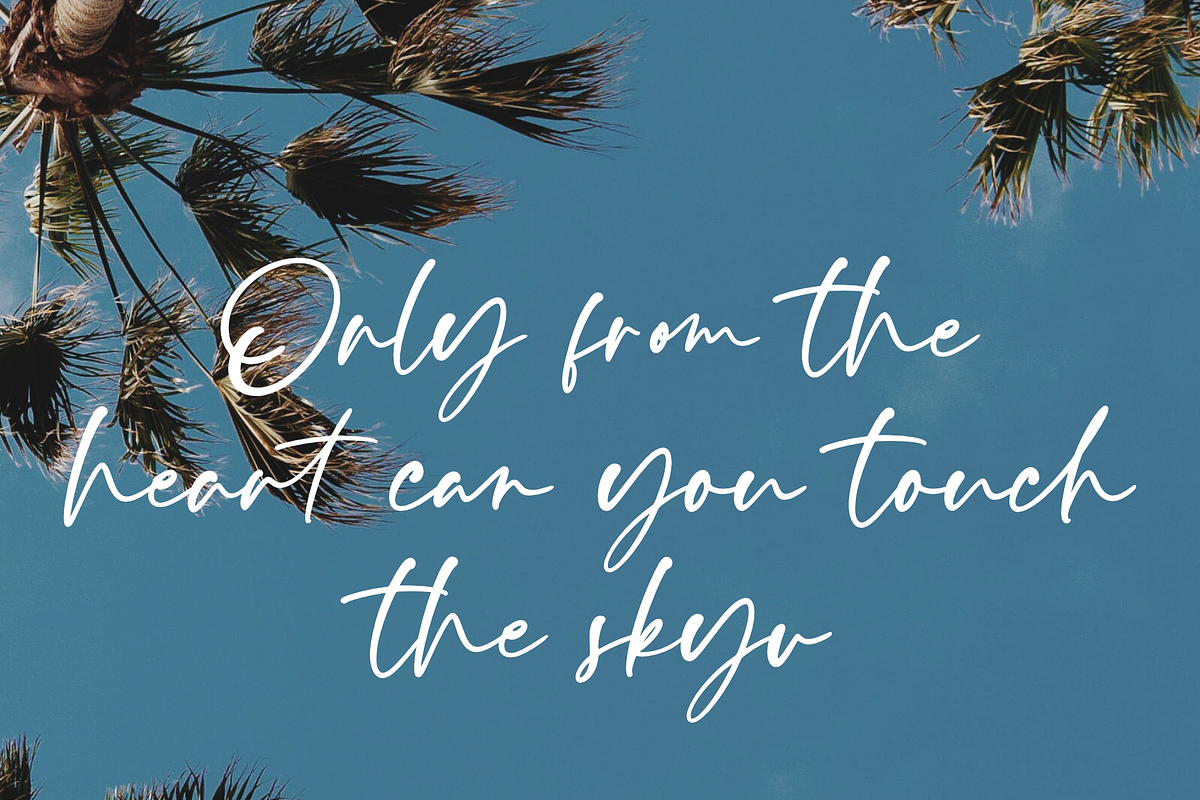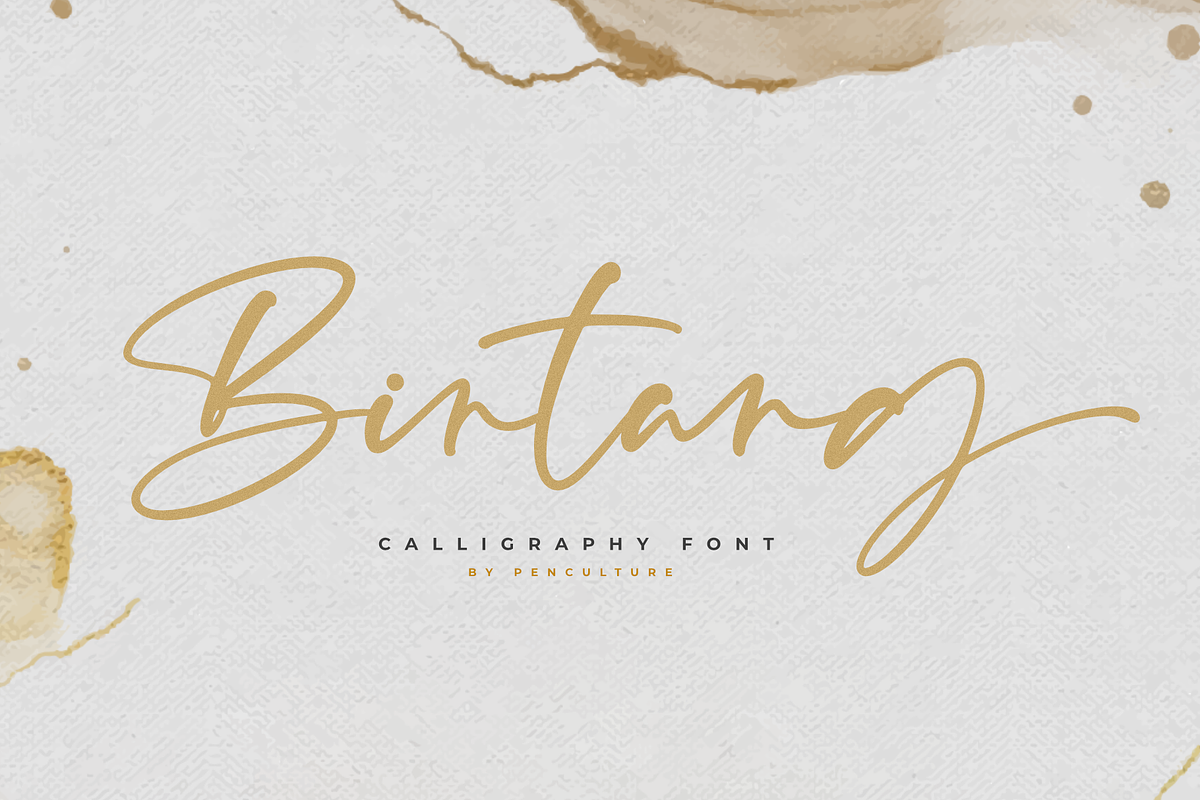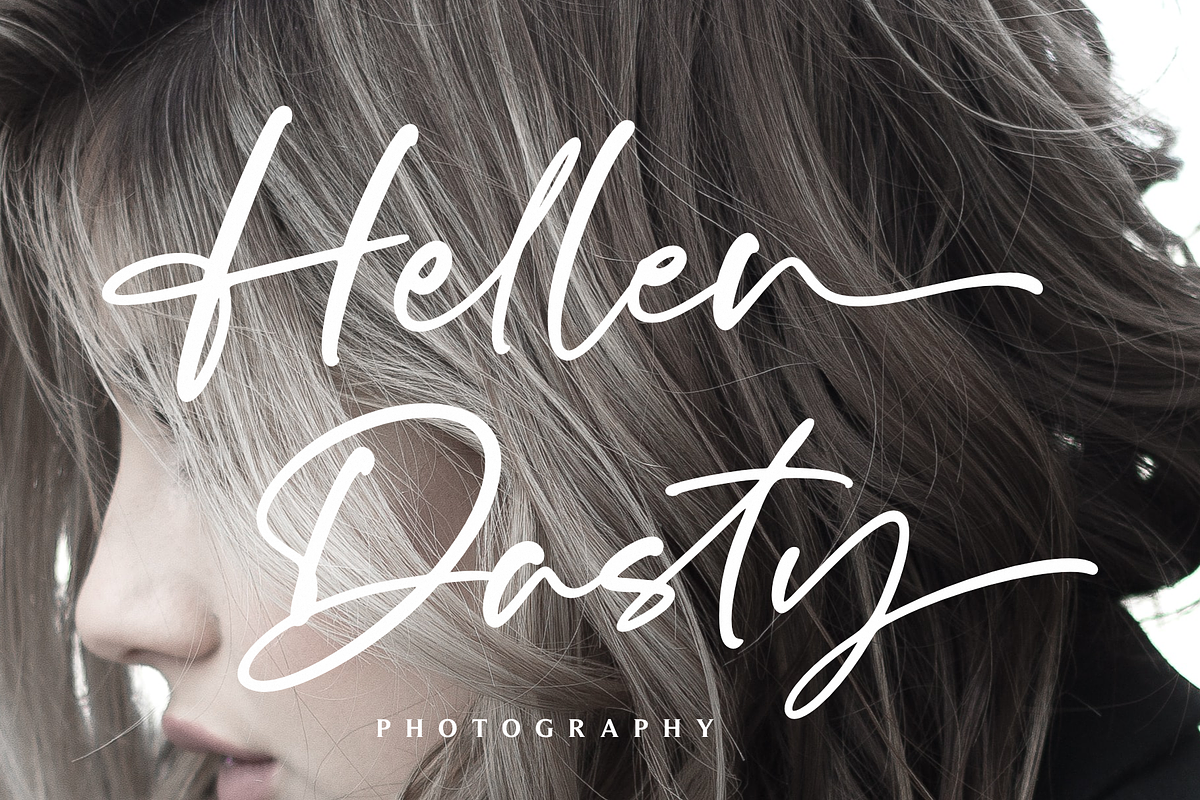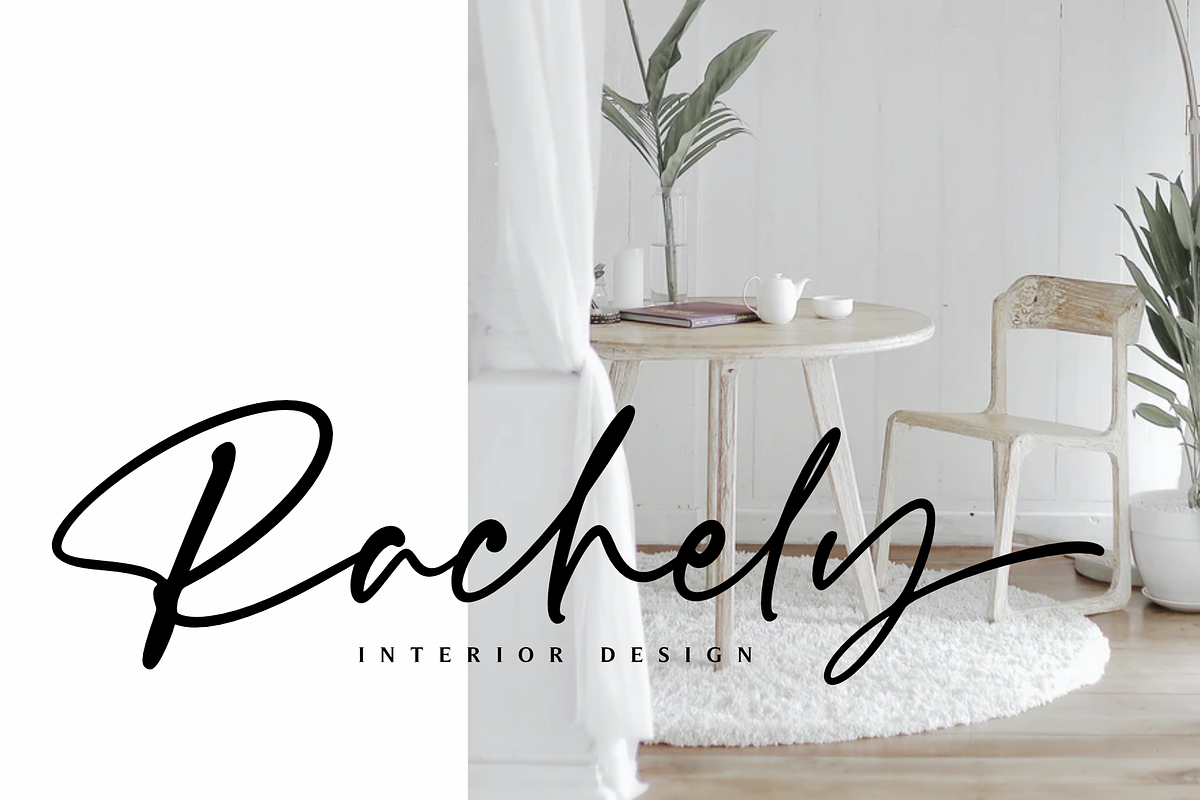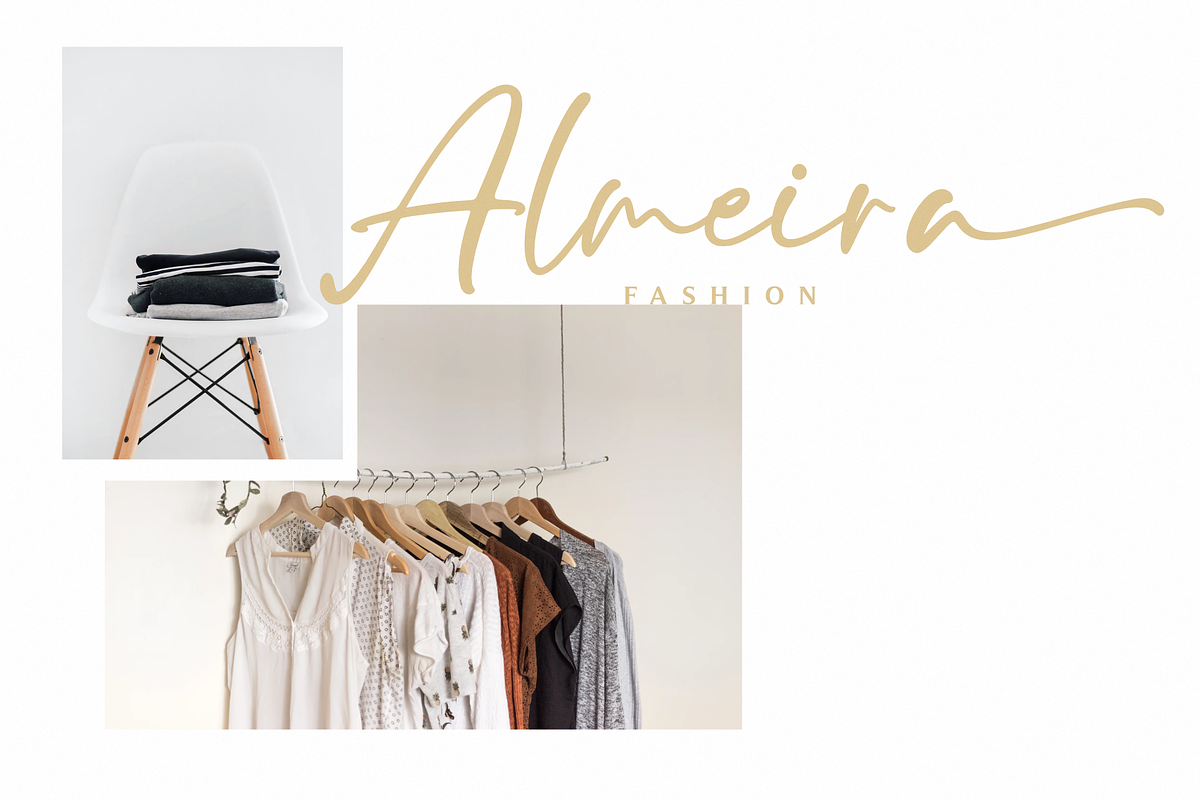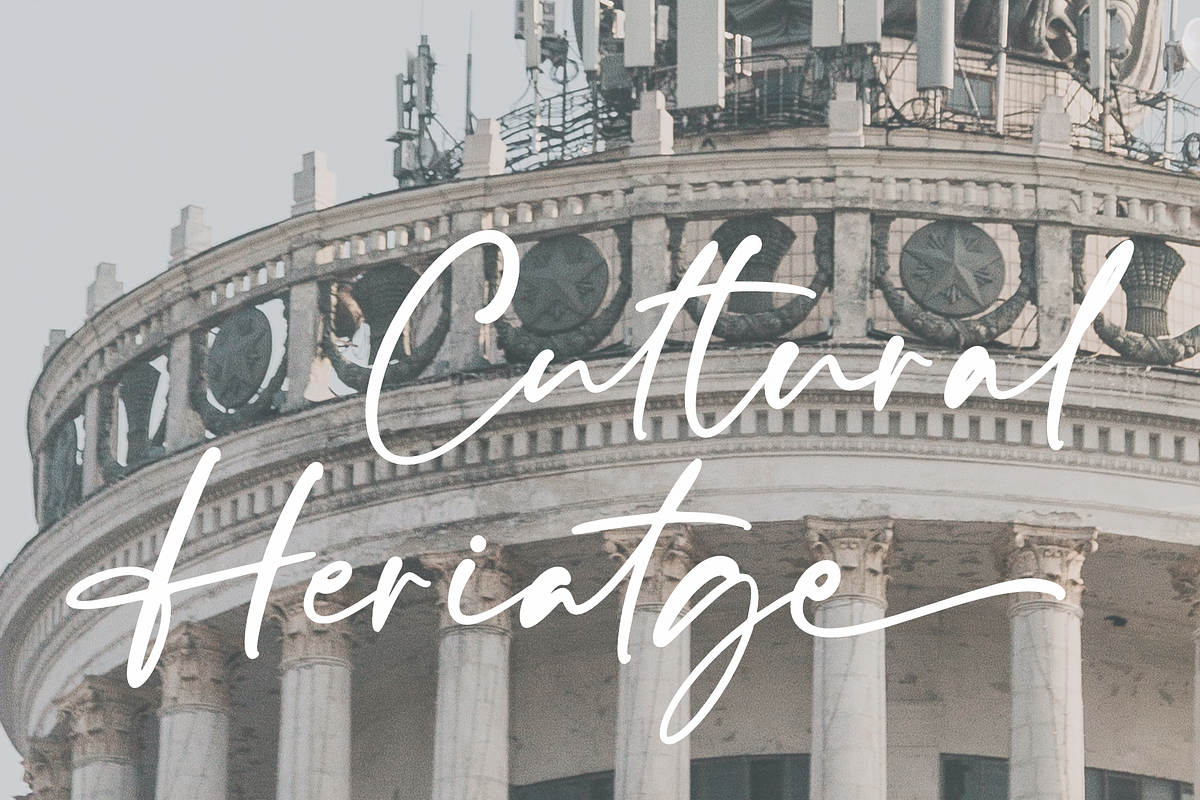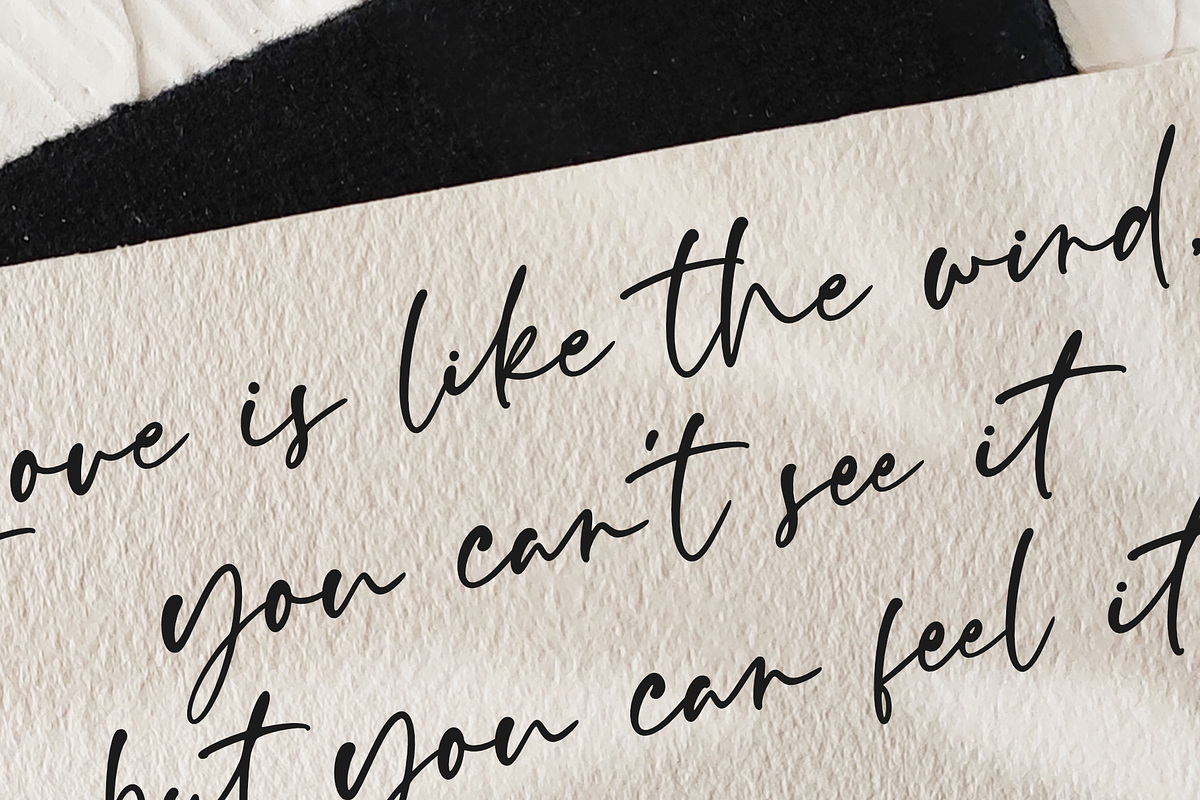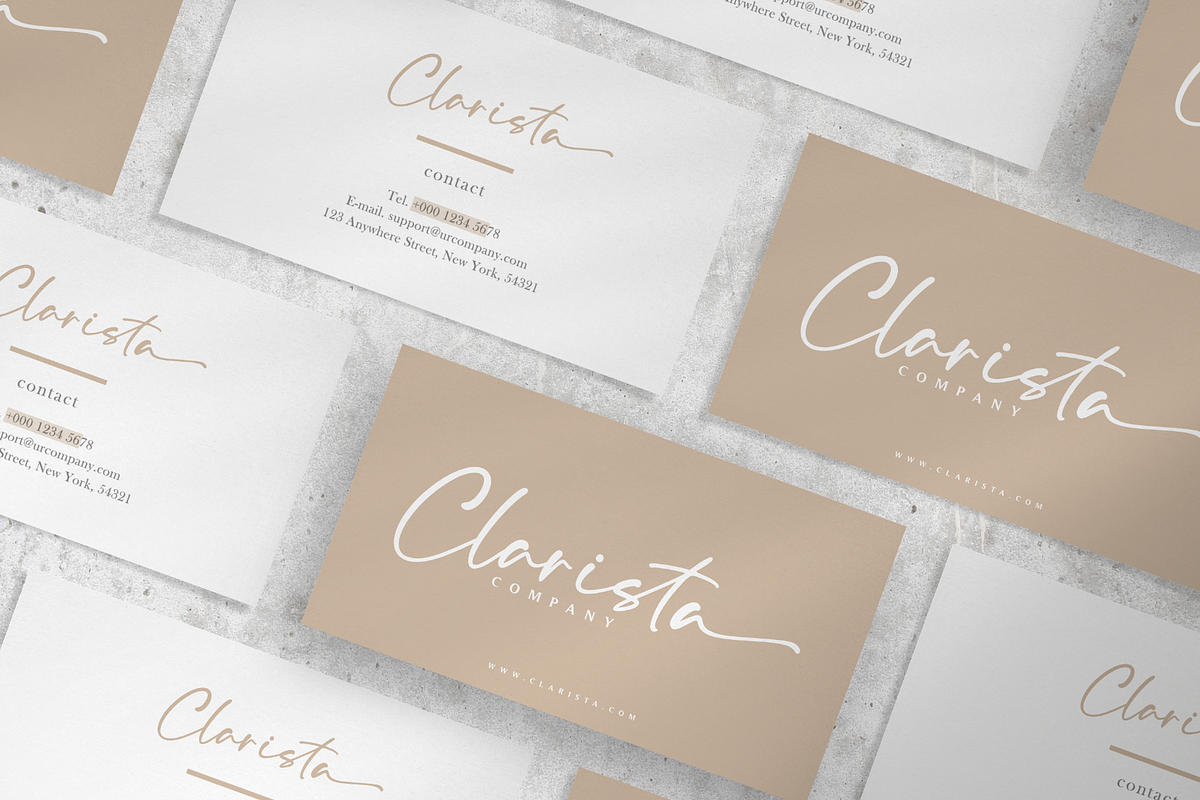
Bintang | Sweet Calligraphy Font
introducing the new font called bintang. Bintang have the meaning of stars, this font has a very distinctive and iconic shape. This font is perfect for logos / brands, posters, and more.
Bintang | Sweet Calligraphy Font by Pen Culture fits naturally into Branding, posters, packaging, typography.